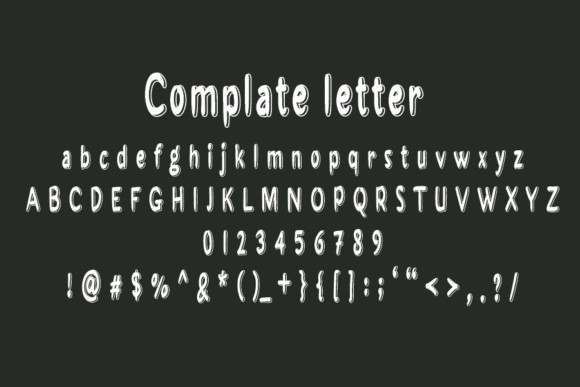
Roomble Font
Roomble is a sweet and friendly handwritten font. Its natural and unique style makes it incredibly fitting to a large pool of designs. The only limit is your imagination!